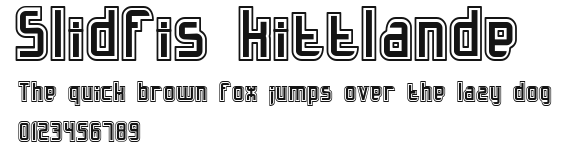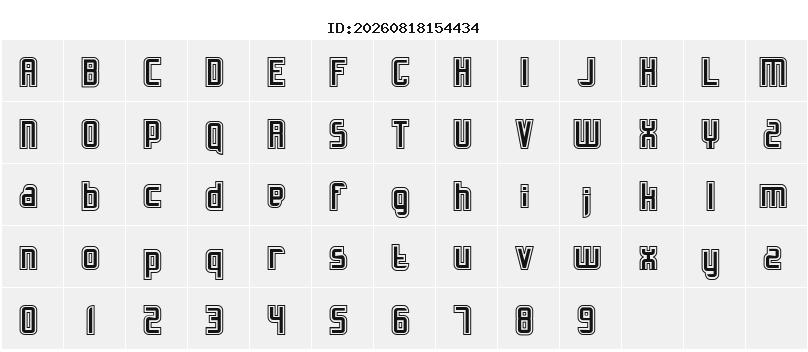
• Font Name: Slidfis kittlande
• Font ID: TarmSaft Slidfis
• Full Font Name: Slidfis kittlande
• Version: Slidfis ljudlig brummande
• PostScript Name: Slidfiskittlande
• Character Count: 151
• Copyright: ©TarmSaft font factory 1997
About Slidfis kittlande.ttf
Slidfis kittlande.ttf is a modern, elegant sans-serif font designed for ultimate readability and visual harmony. Perfect for branding, headlines, web design, and print materials.